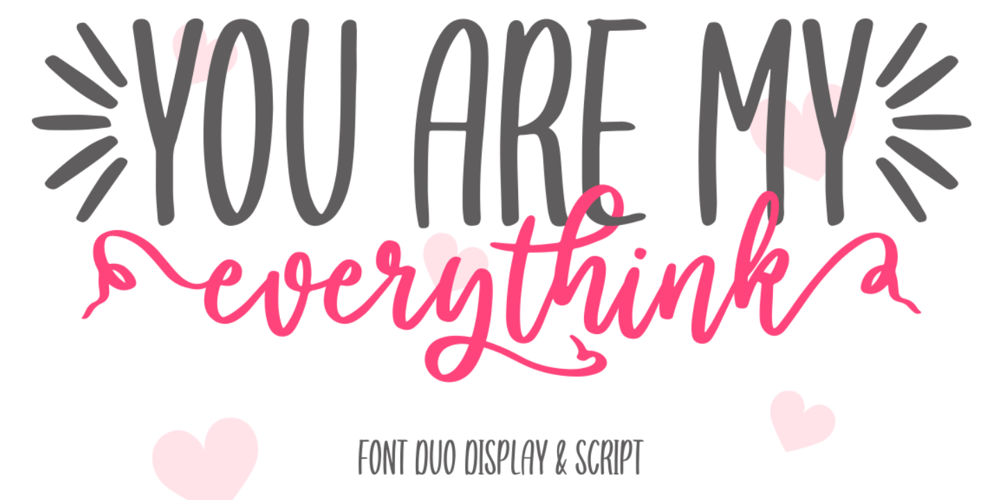
You are my everythink
You are my everythink font
You are my everythink Font Family was designed by Siti Nurjanah and published by NJ Studio. You are my everythink contains 2 styles and family package options. Hi…Thank for your visit :)You are my everythink a font duo is a beautiful script font with beginning and ending swash and display font. It features characters that will take your projects to the next level!This font is PUA code which means you can easily access all the glyphs and alternates that are full of love! It also features many special features including glyphs and alternate. font designs that are made for various vector designs, printing such as digital wedding blogs, online shops, social media, while printing can be used in the field of product clothing, accessories, bags, pins, logos, business cards, watermarks and many others …so it can make your product look cute and attractive, and also Multilingual support!!!Happy design …